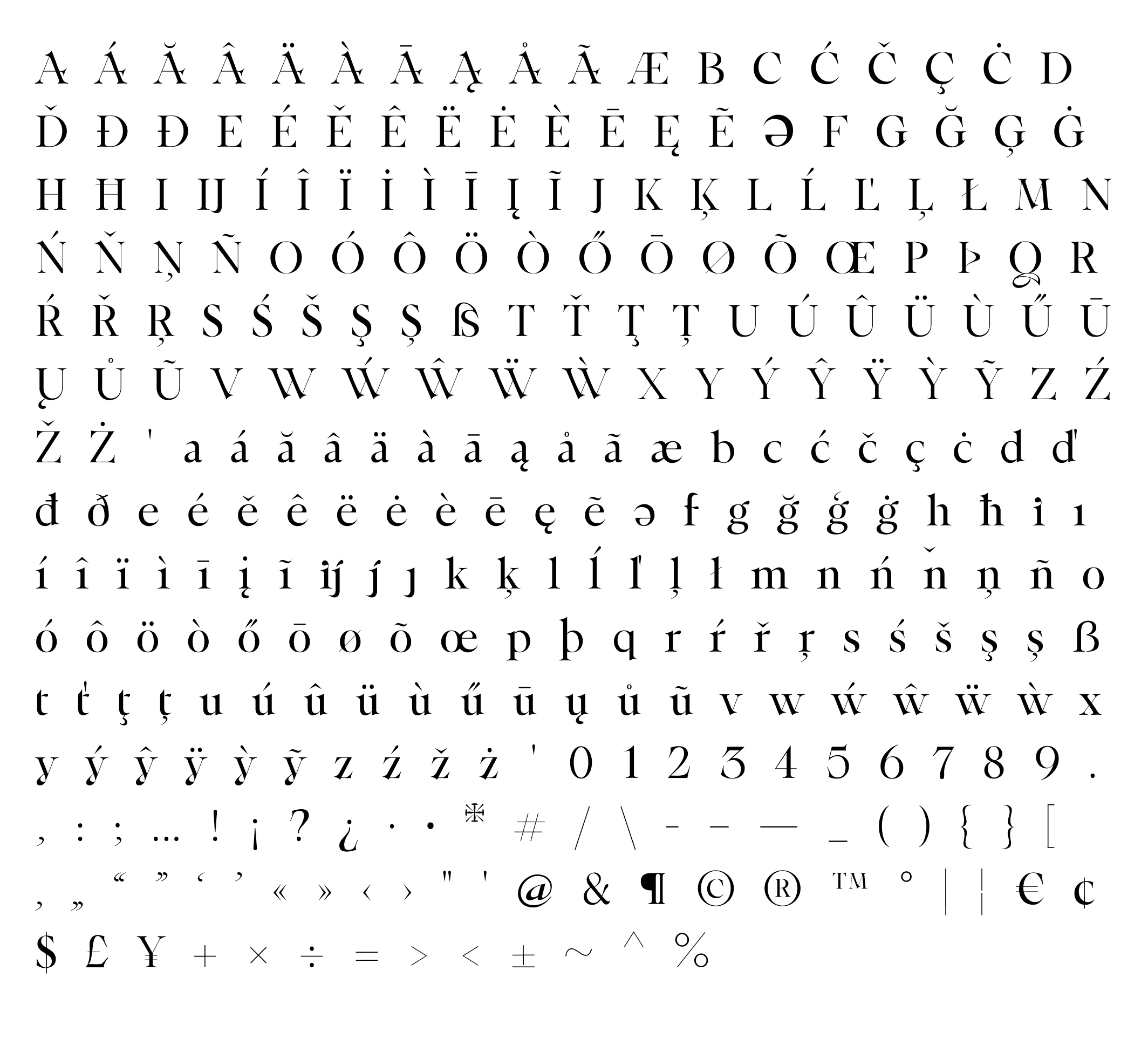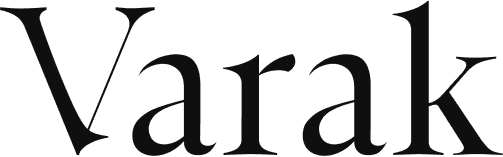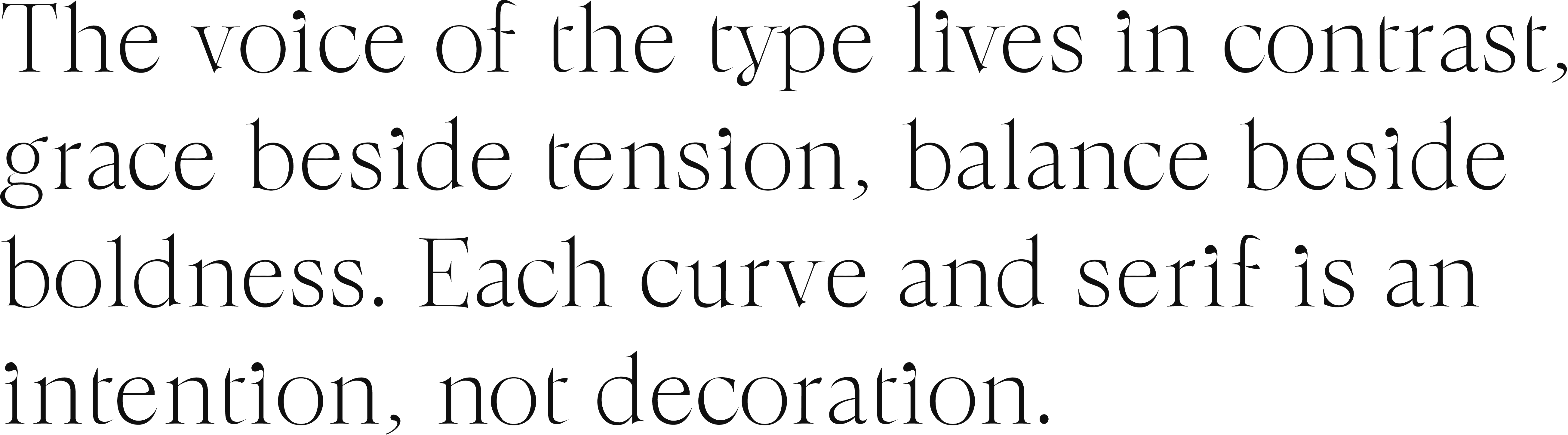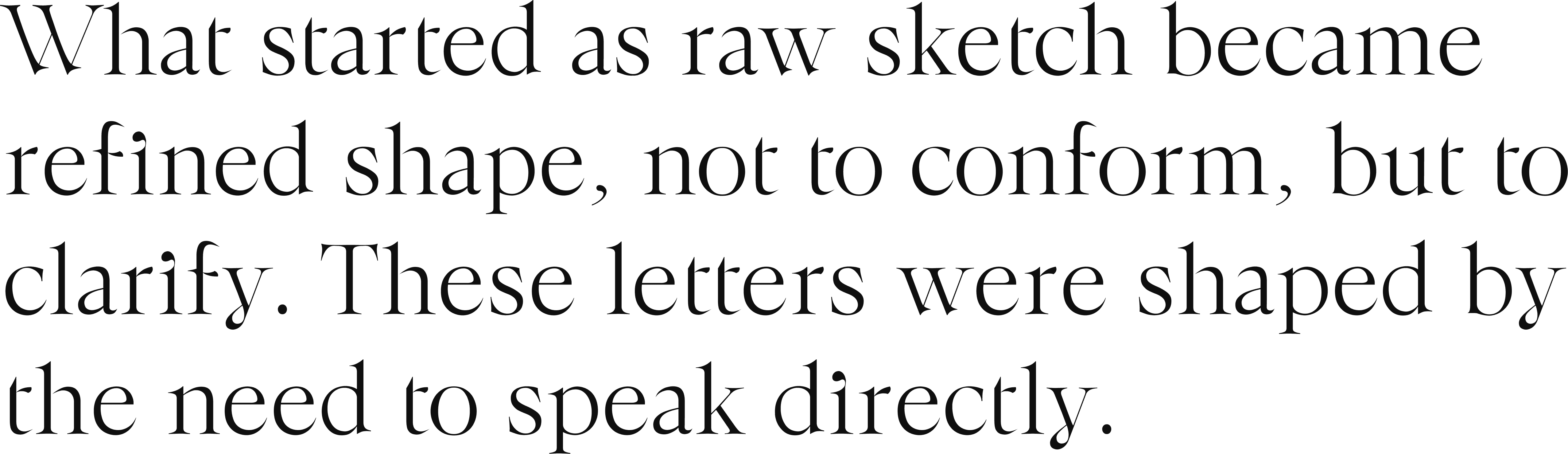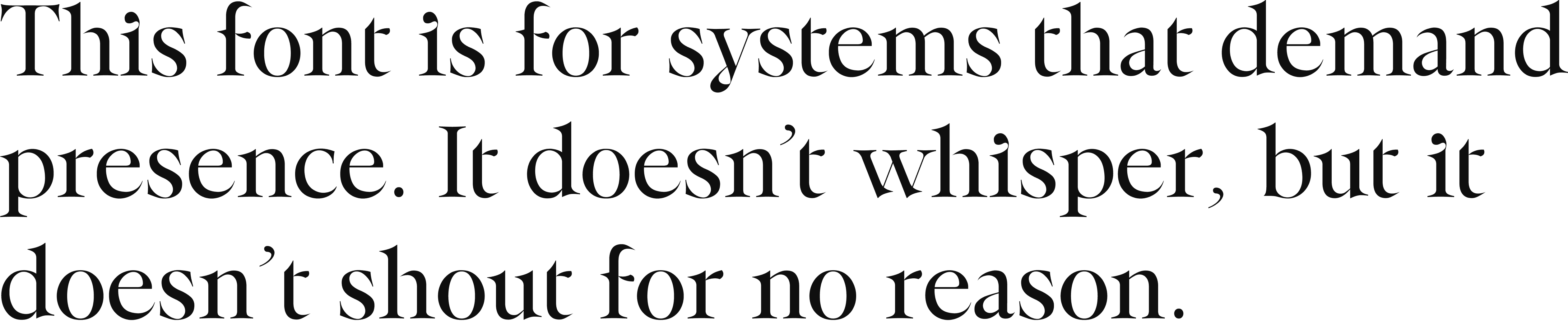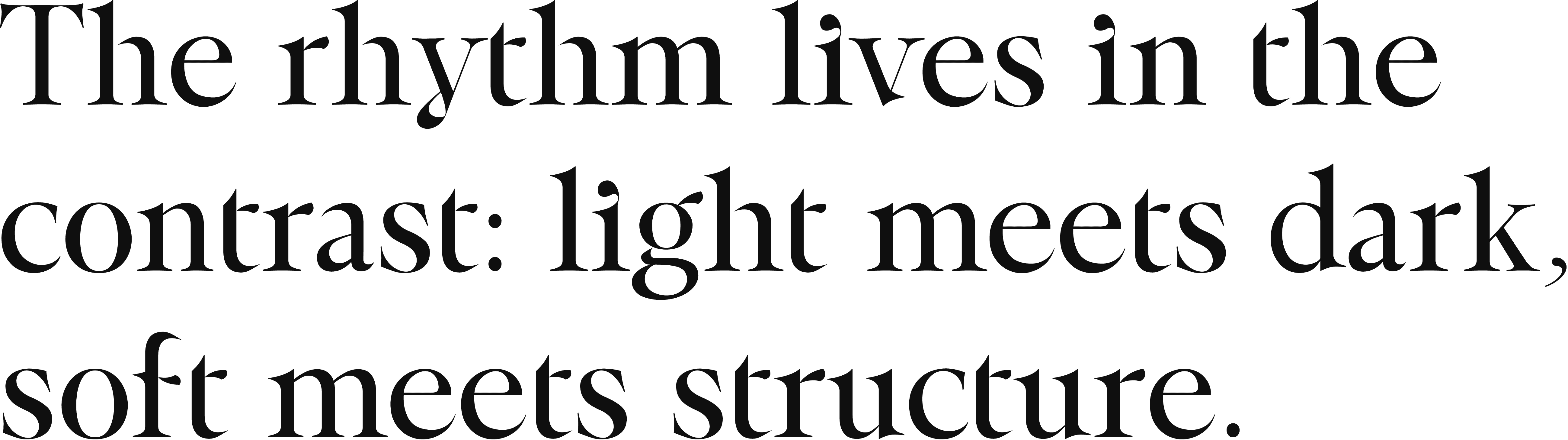
VARAK is the signature typeface of the collection. It was shaped slowly, like cloth, built on classical structure but cut with intention.
At first glance it follows the rules, but the details unsettle them. The weight, the rhythm, the tension between sharp and soft, all of it points to something underneath.
It holds precision without smoothness, elegance without decoration. This isn’t about breaking tradition, it’s about folding it. VARAK carries the manifesto in its form. It’s the spine.
Available Silhouettes: Light, Regular, Bold